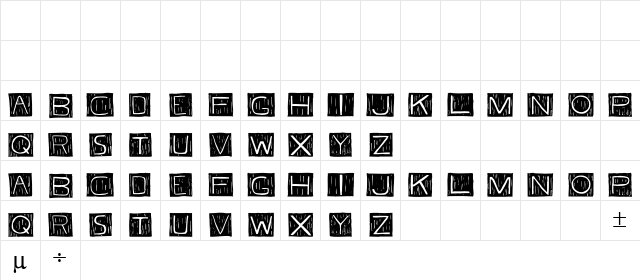
FKAFont Regular
Design Context for FKAFont Typeface
FKAFont is a composed and adaptable typeface that performs quietly and consistently across a wide range of design contexts.